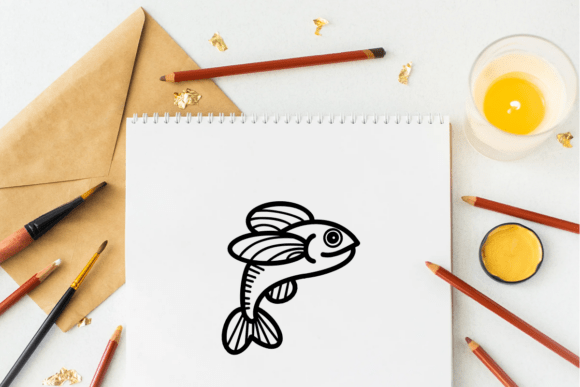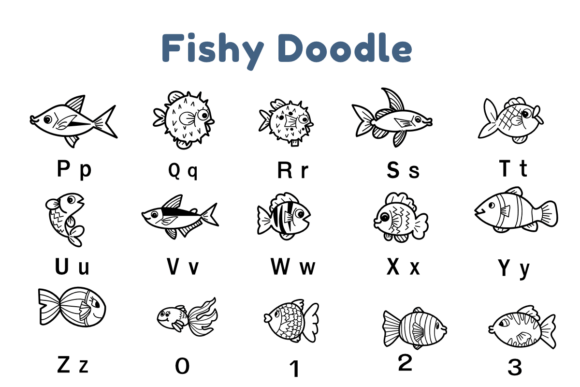
Fishy Doodle Font
Dive into creativity with Fishy Doodle, a sea-inspired dingbats font full of quirky and cute fish illustrations. Ideal for children’s books, educational materials, party decor, or underwater-themed designs, these whimsical icons are ready to swim into your next project.